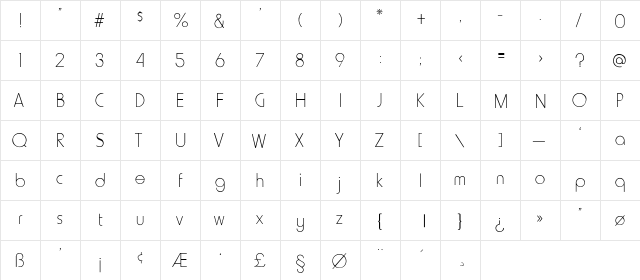
Howard-Light Regular Font Preview
Howard-Light Regular
Design Context for Howard-Light Typeface
Howard-Light offers clean, dependable letterforms without strong stylistic allegiance, making it a practical choice for designers who need flexibility. Its slender proportions lend an understated elegance to any composition.